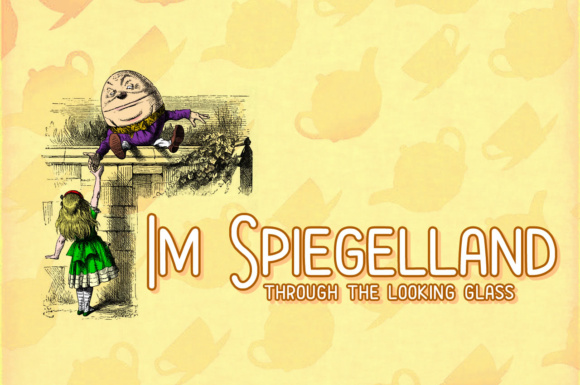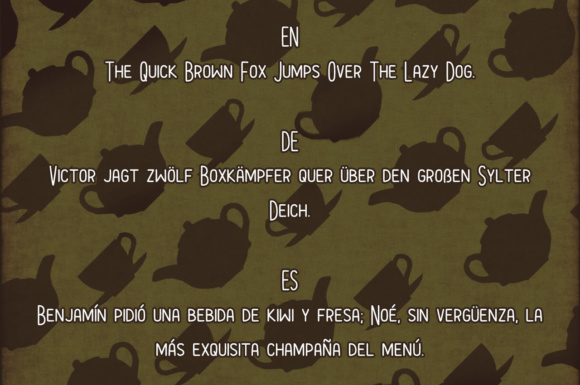
Im Spiegelland Font
About Im Spiegelland Font
Perfect for projects that require a cute little handwritten finish. The mix of tall and short capitals creates a unique look.